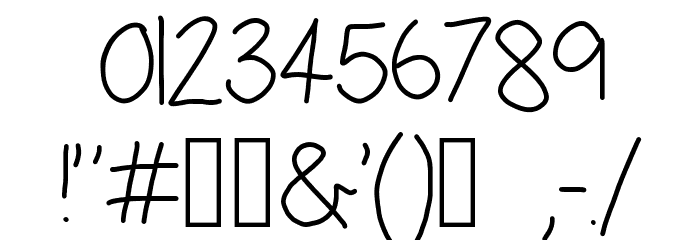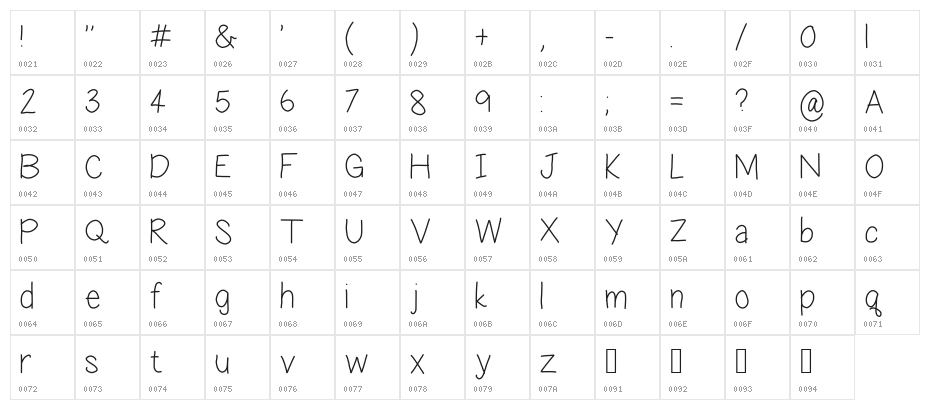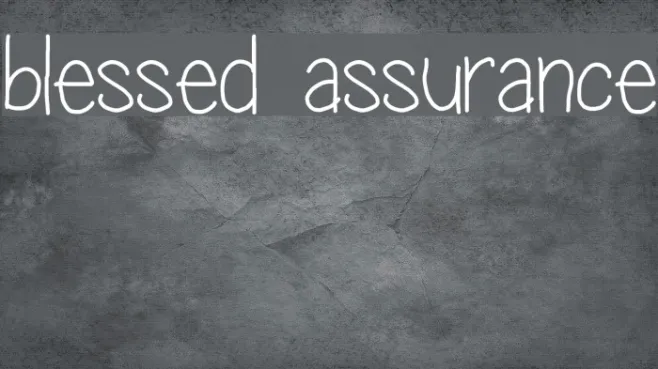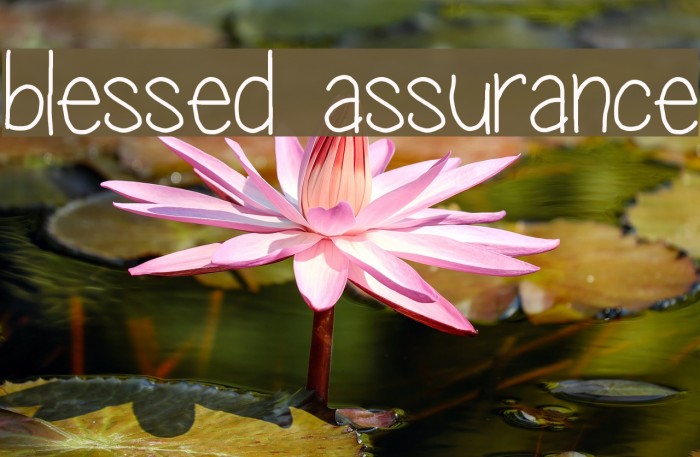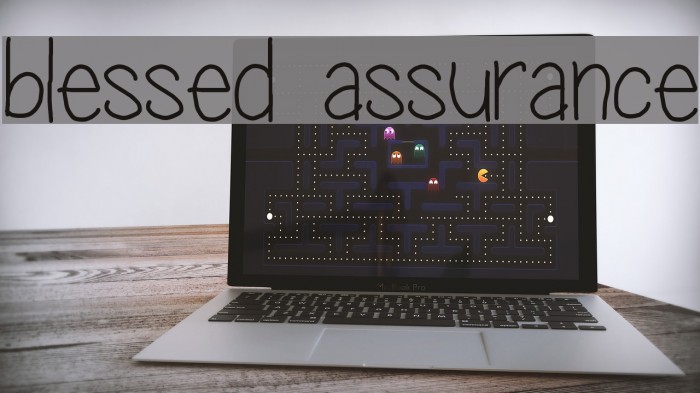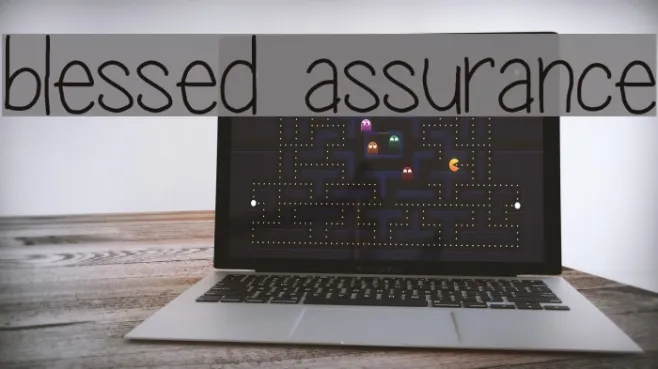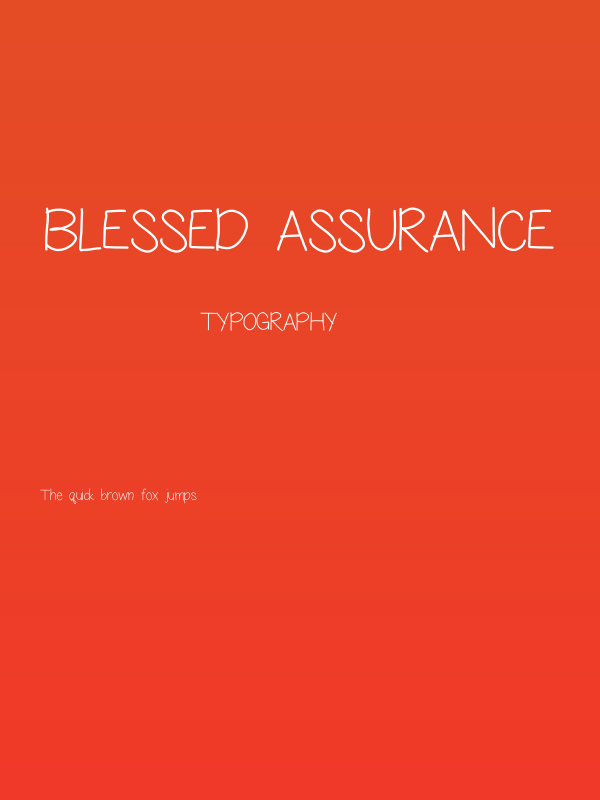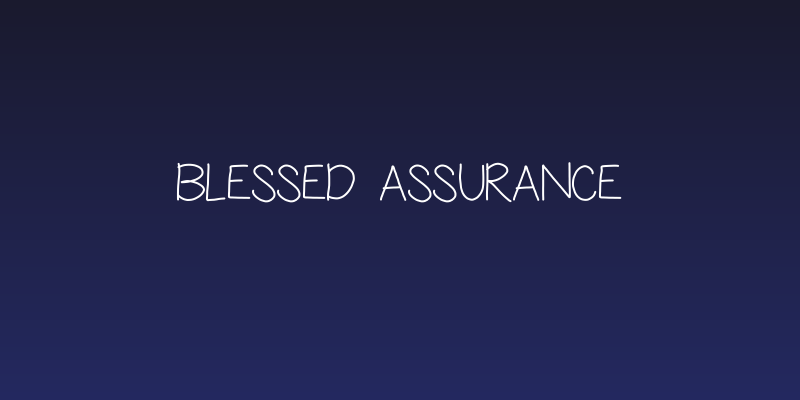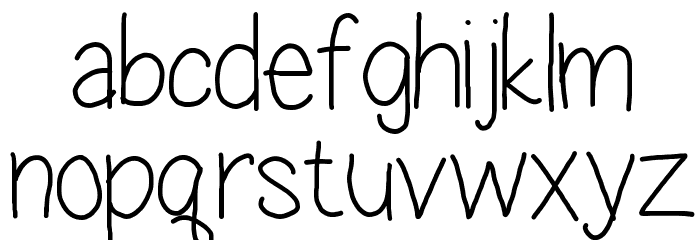
blessed assurance Font
This font features a playful and casual handwritten style, characterized by its irregular strokes and slightly uneven baseline, giving it a whimsical and informal appearance. The uppercase letters are tall and narrow, while the lowercase letters maintain a consistent height, contributing to a cohesive look. The numerals and special characters follow the same playful aesthetic, ensuring uniformity across all glyphs. The font's overall design is approachable and friendly, making it suitable for projects that require a personal touch.
Overall StyleCasual
Use CaseHeadlines, Informal text, Creative projects
Proposed ProjectsIdeal for greeting cards, children's books, personal blogs, and informal branding projects.